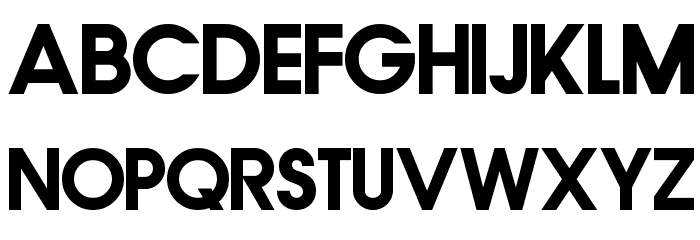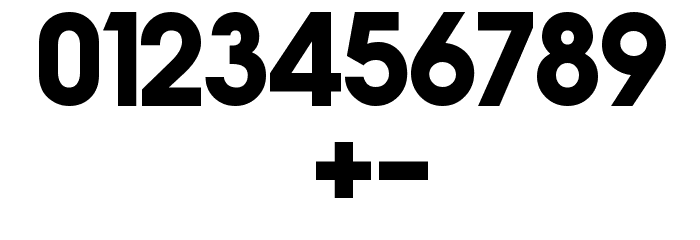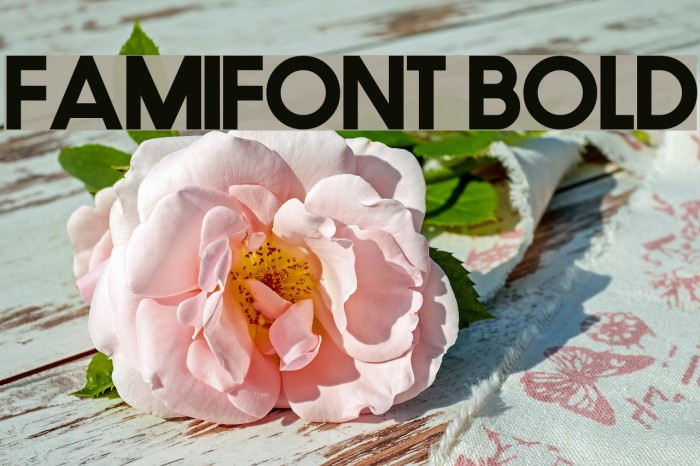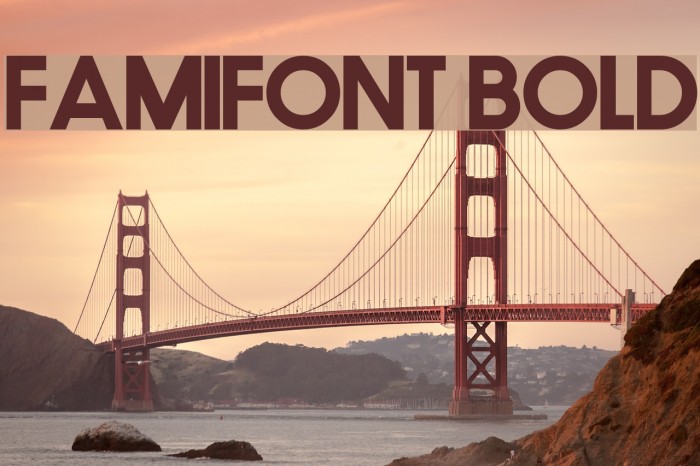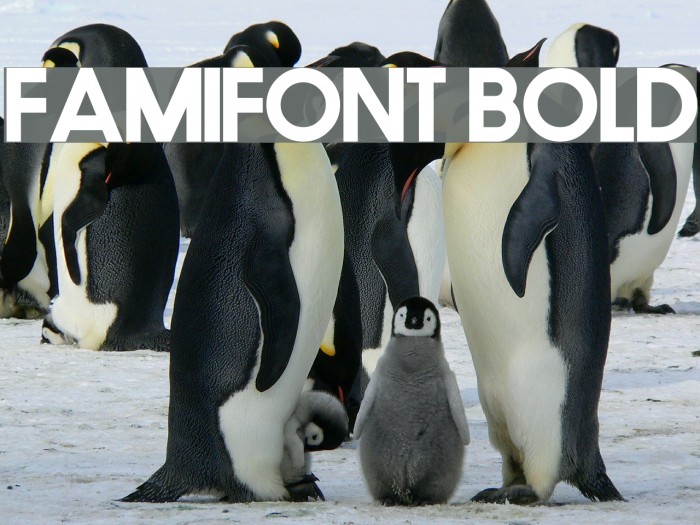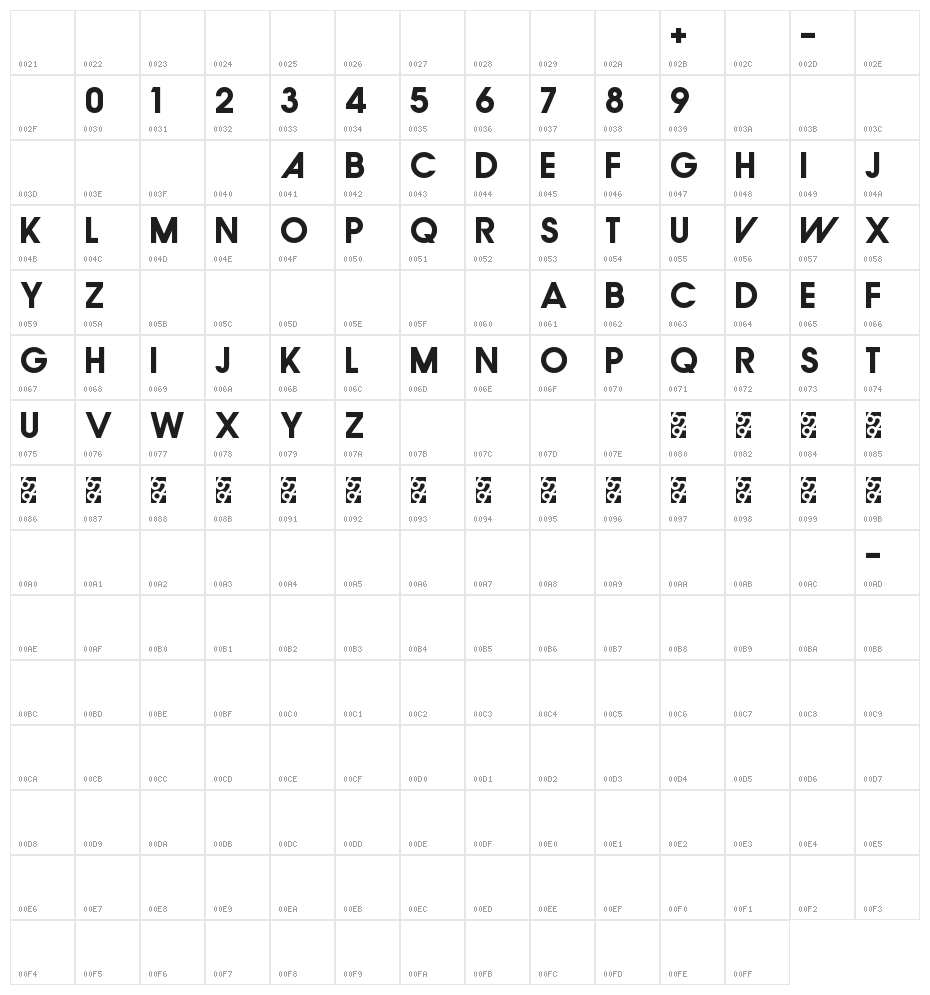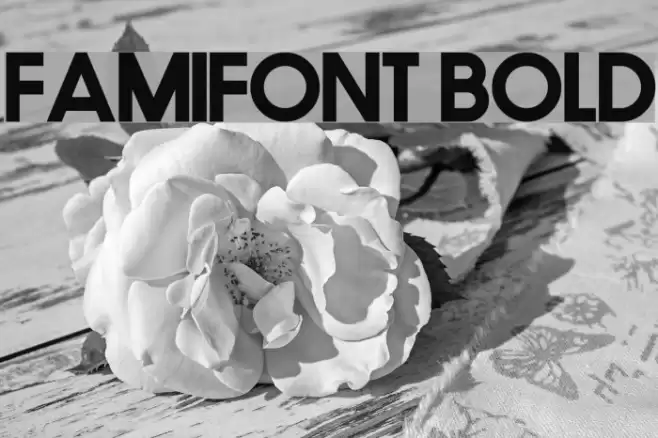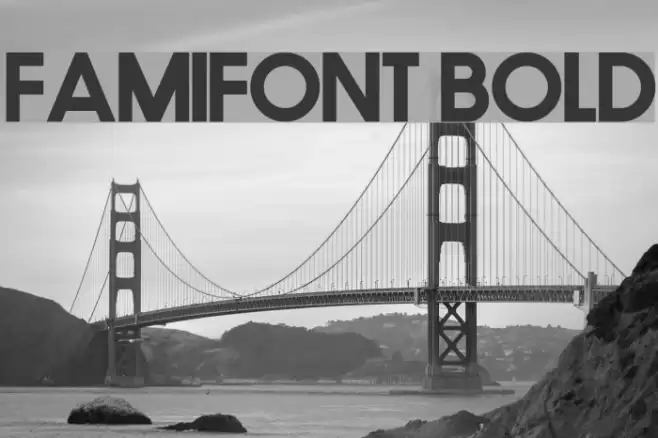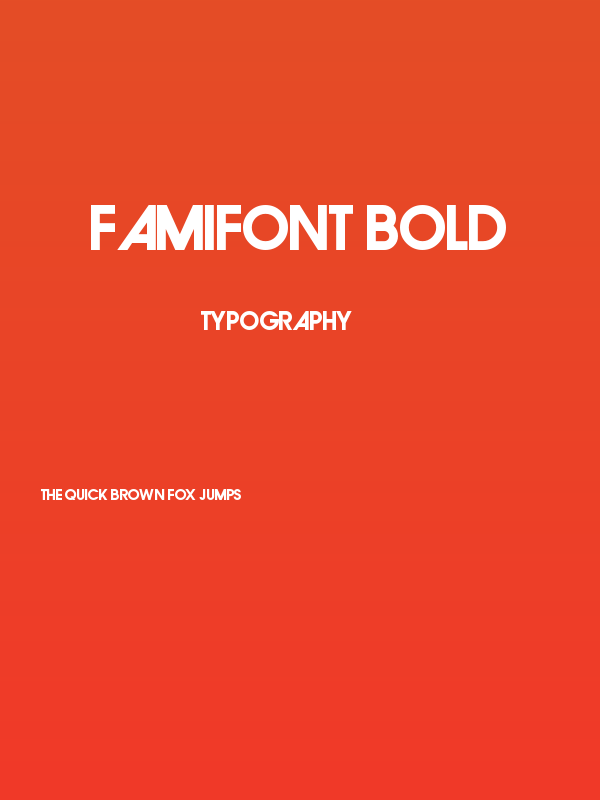
FamiFont Bold Font
This font features bold, geometric letterforms with a strong presence. The uppercase letters are uniform in height, creating a cohesive and structured appearance. The characters are wide and have a consistent stroke weight, contributing to a modern and assertive look. The numerals are equally bold, maintaining the same width and weight as the letters, ensuring a harmonious design. The special characters are clear and easily distinguishable, making them suitable for various applications. The overall style is clean and impactful, ideal for making statements.
A bold, geometric font with uniform, wide letterforms and a modern style.
- Proposed Projects: Ideal for branding, headlines, posters, and any design requiring a strong, modern aesthetic.